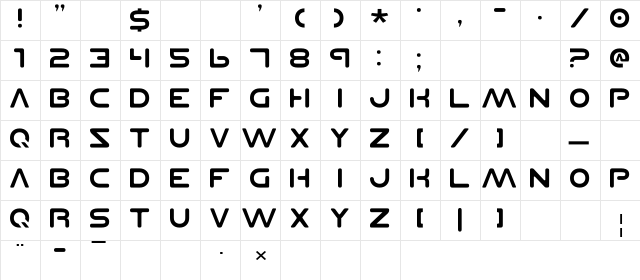
Planet NS Regular
Design Context for Planet NS Typeface
Planet NS takes a measured approach to typography — its balanced proportions and neutral character make it a reliable workhorse for both digital and print work.